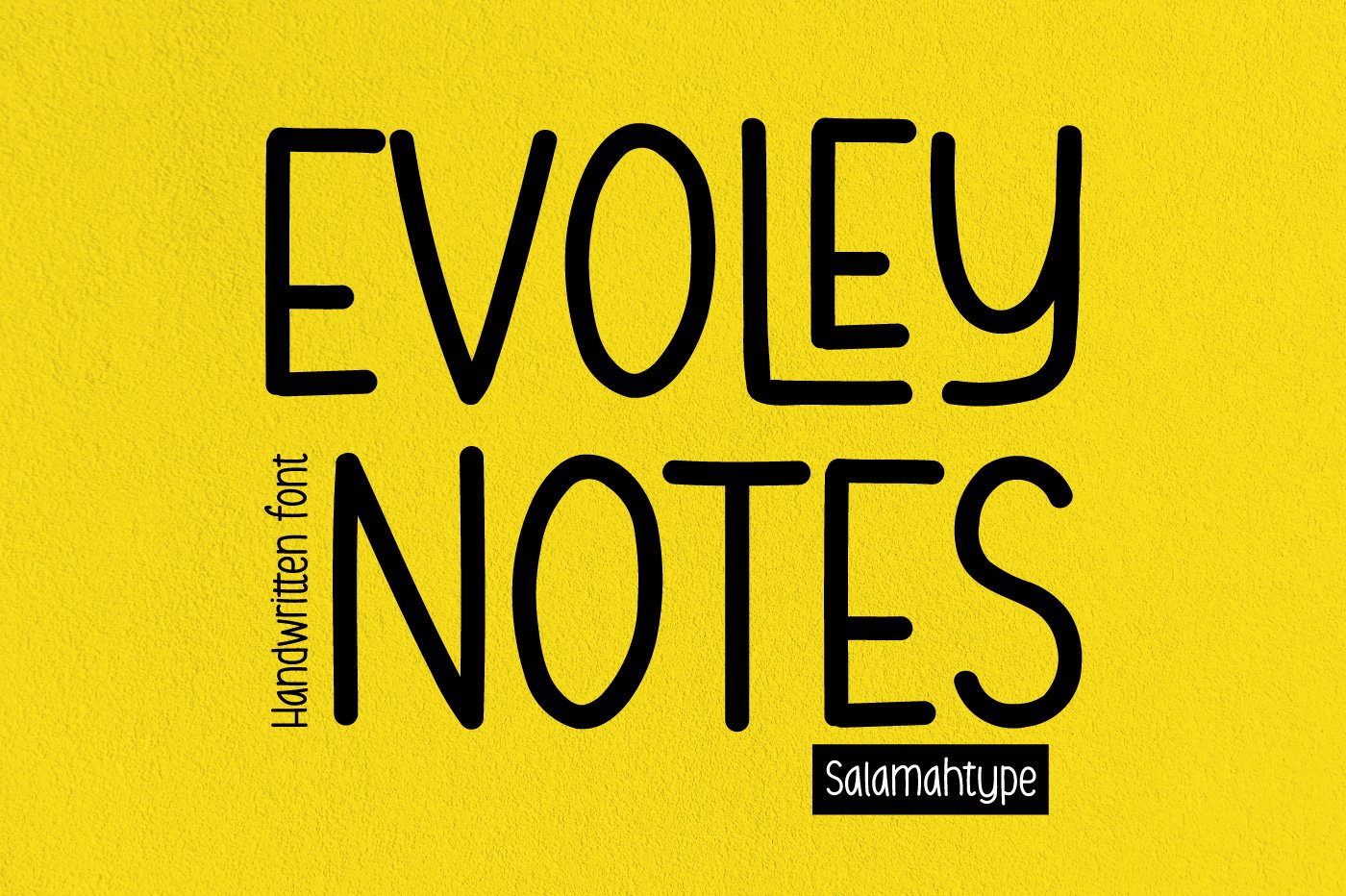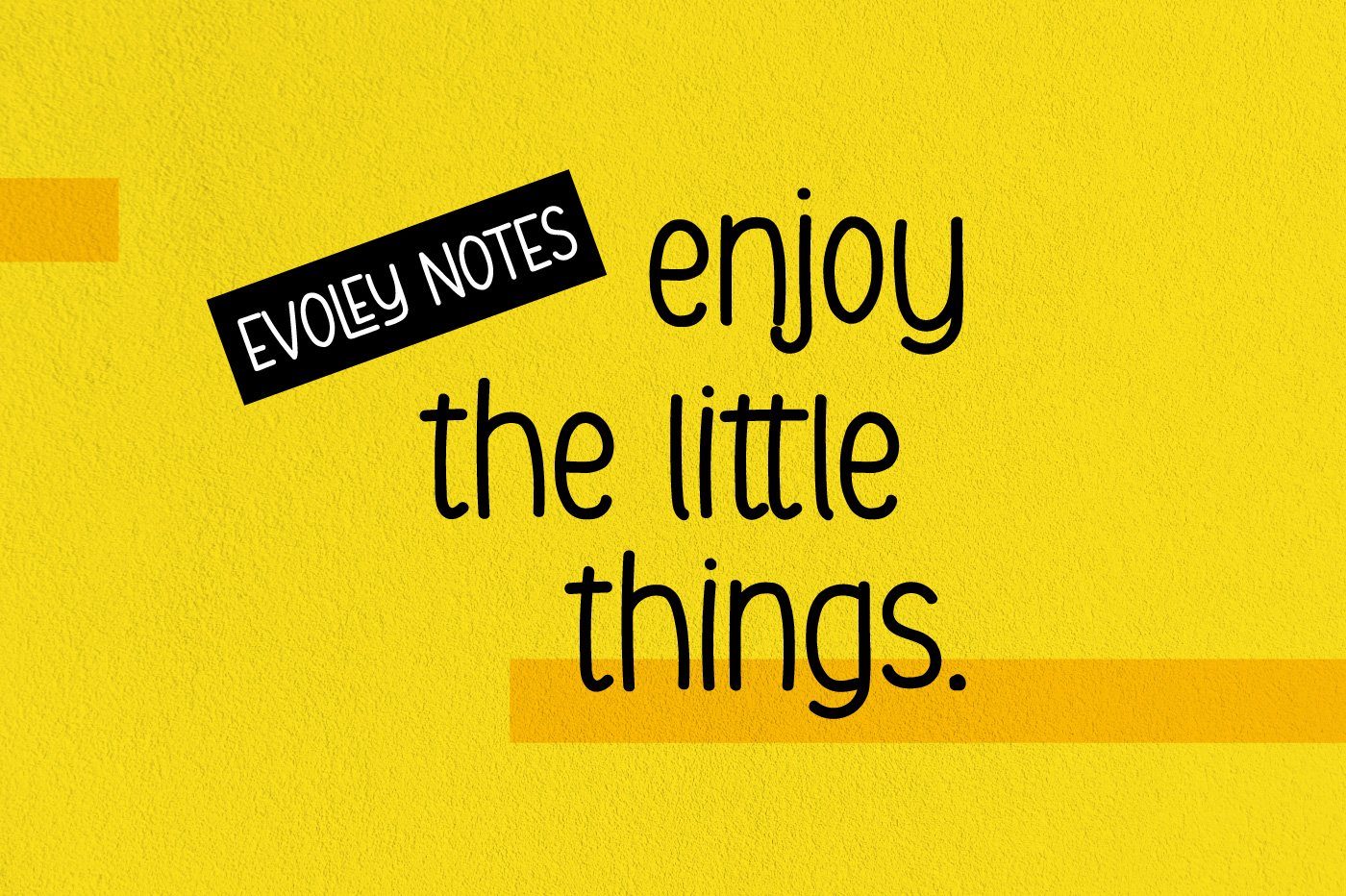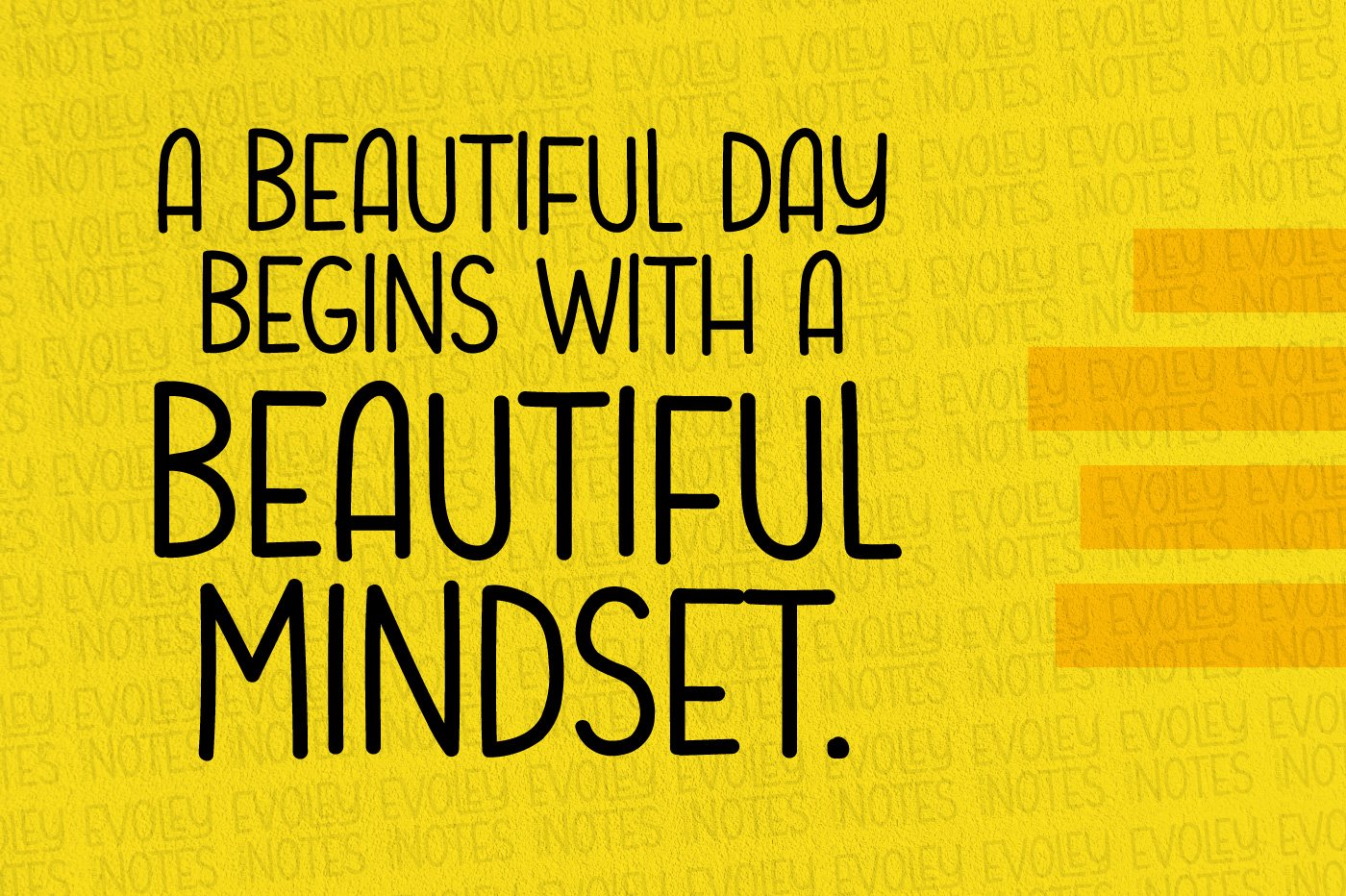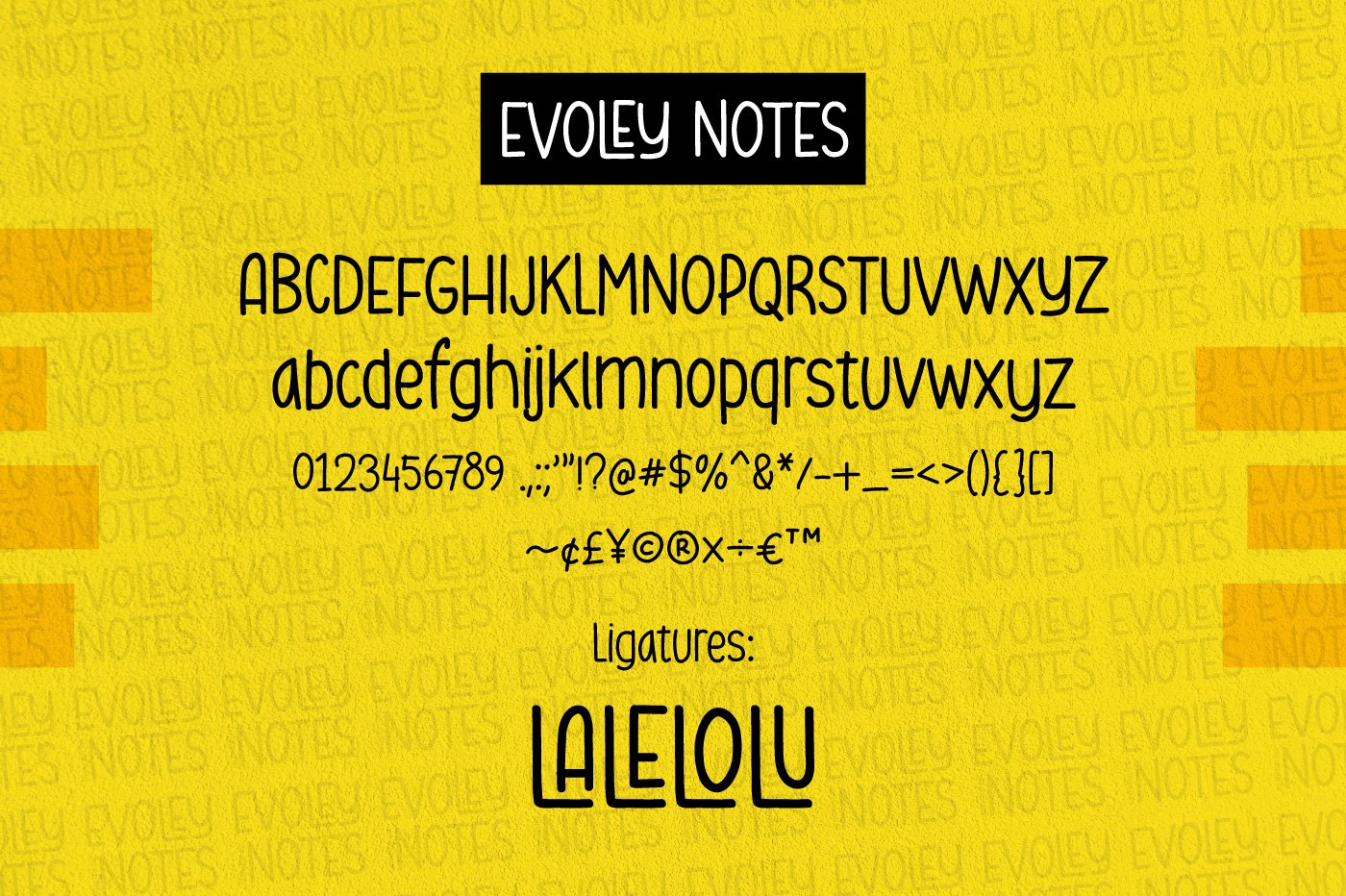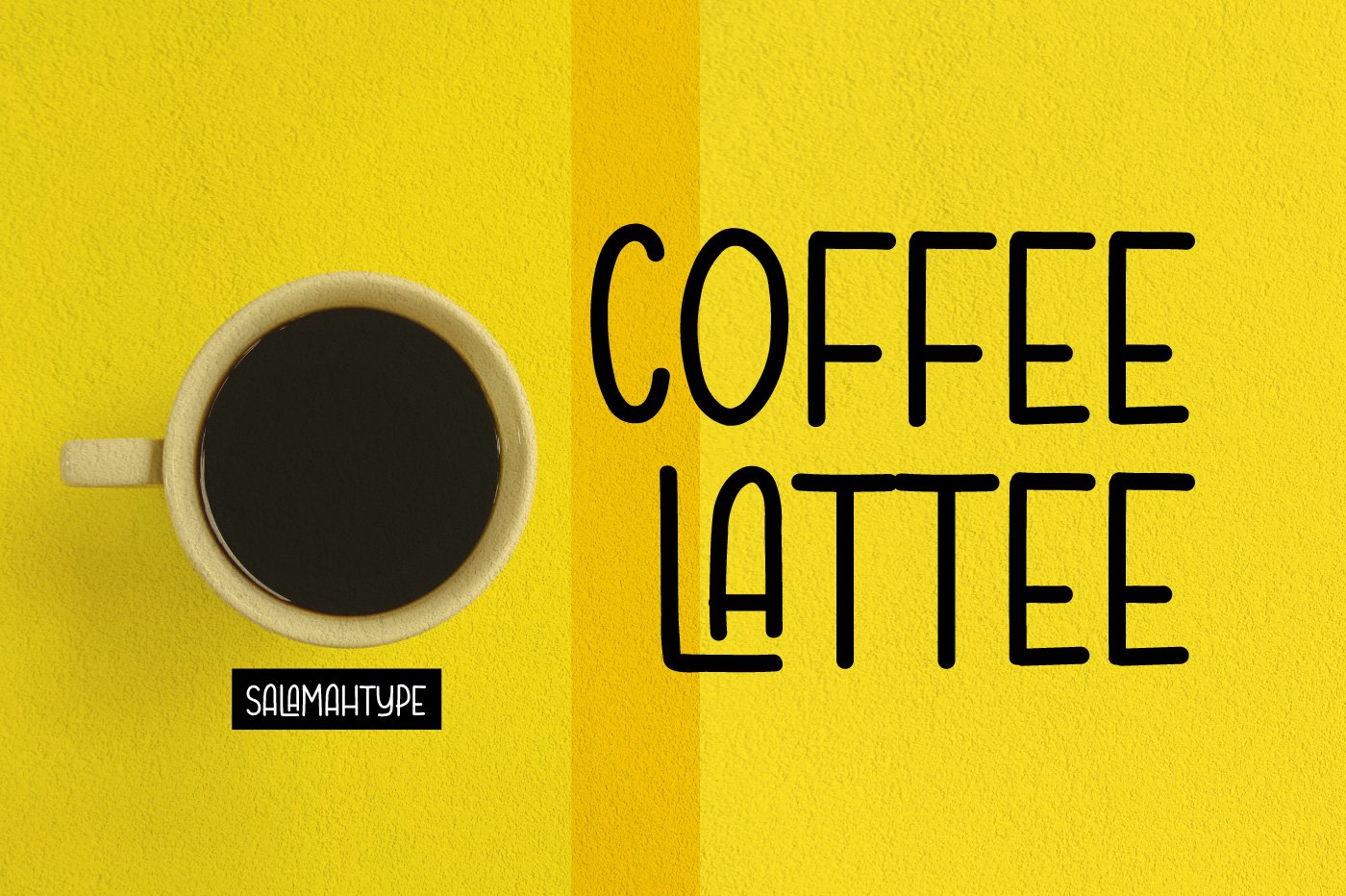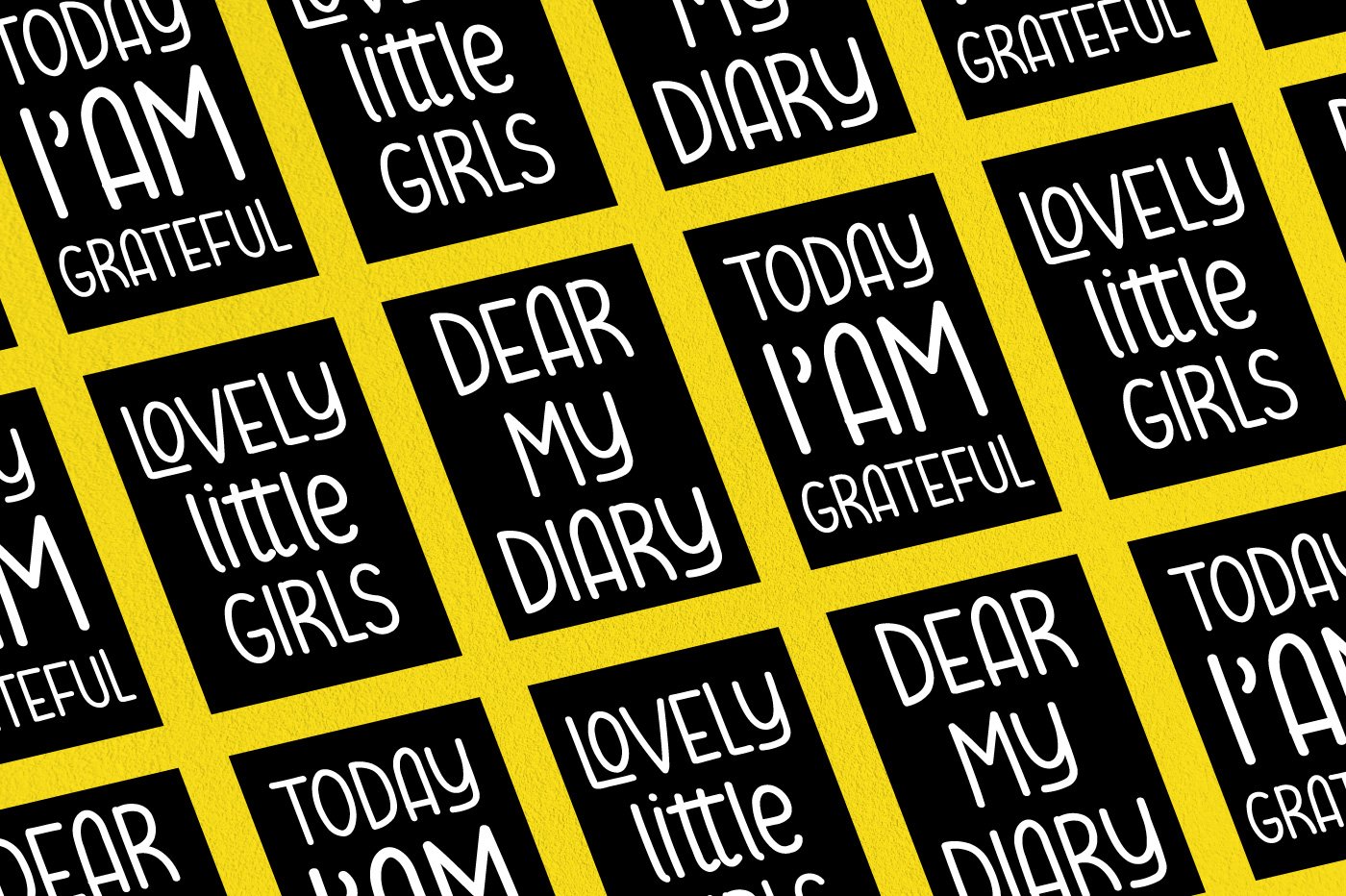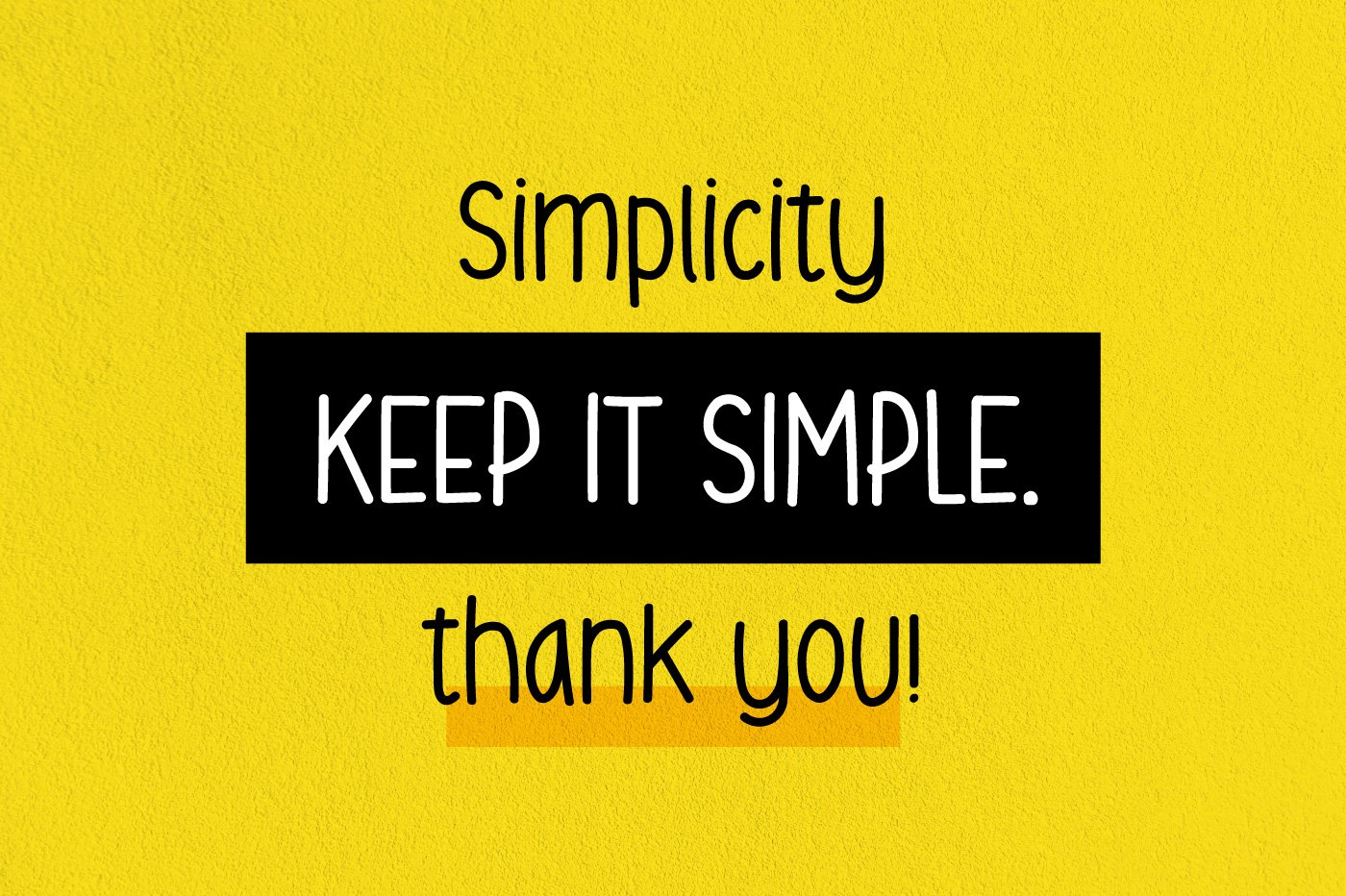
Evoley Notes
Evoley Notes is a simple handwritten font but more stylish with some ligatures. This font is perfect for quotes, magazines, labels, branding, posters, logos and more.
Evoley Notes – Handwritten Font